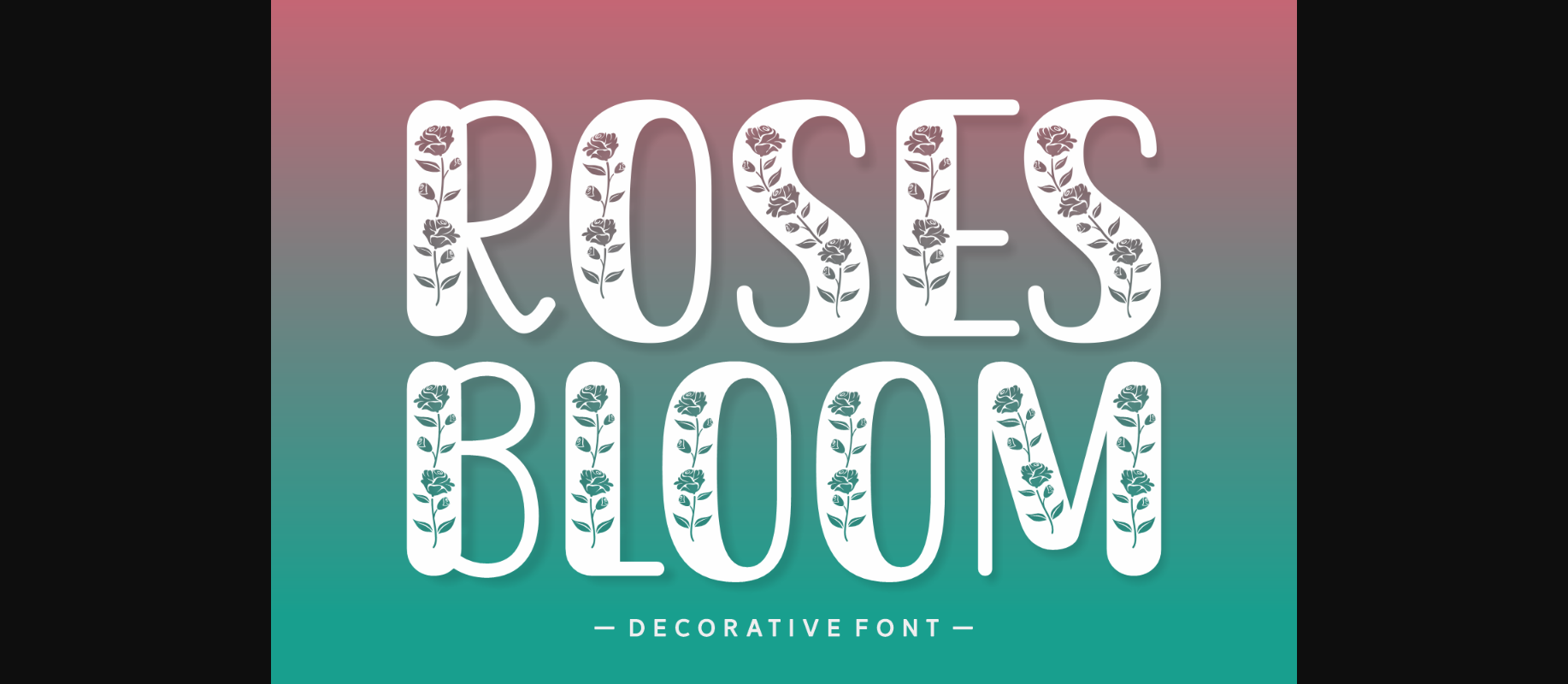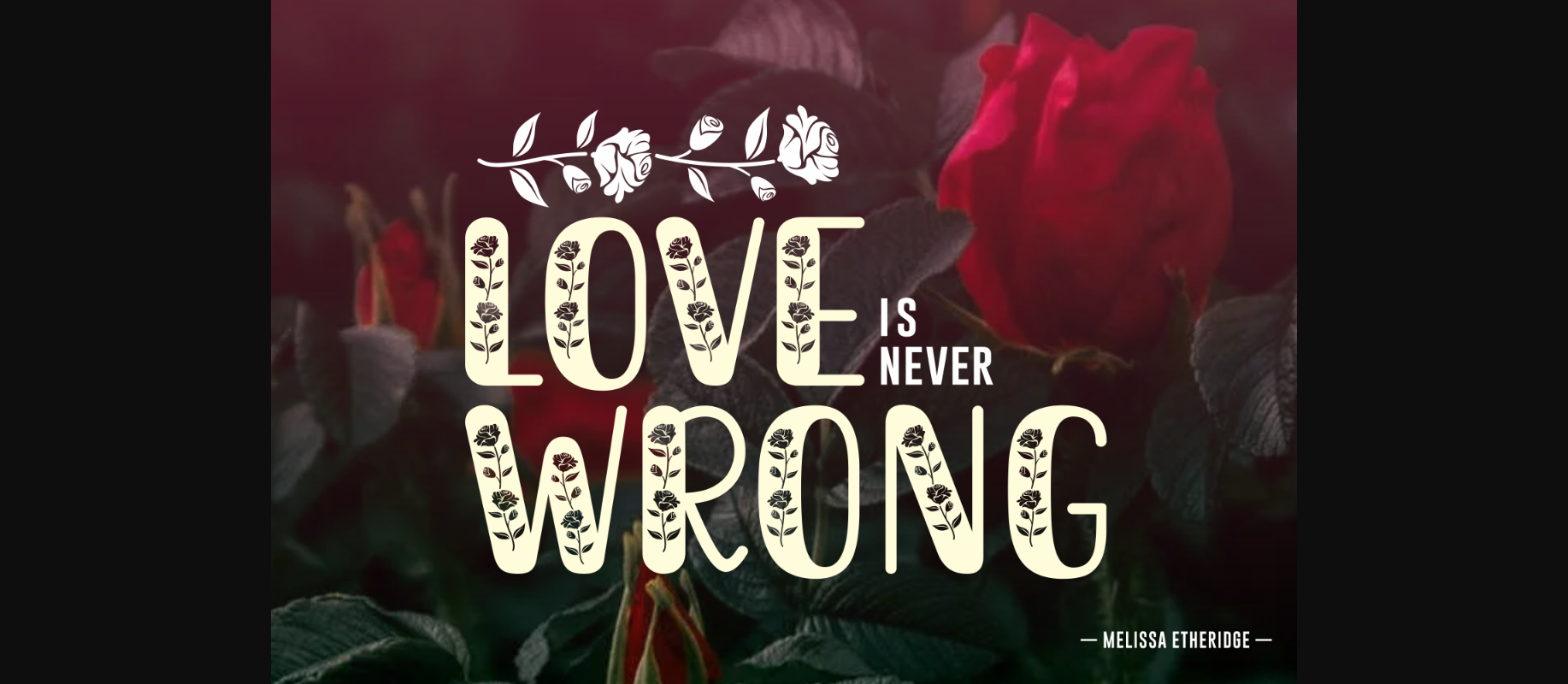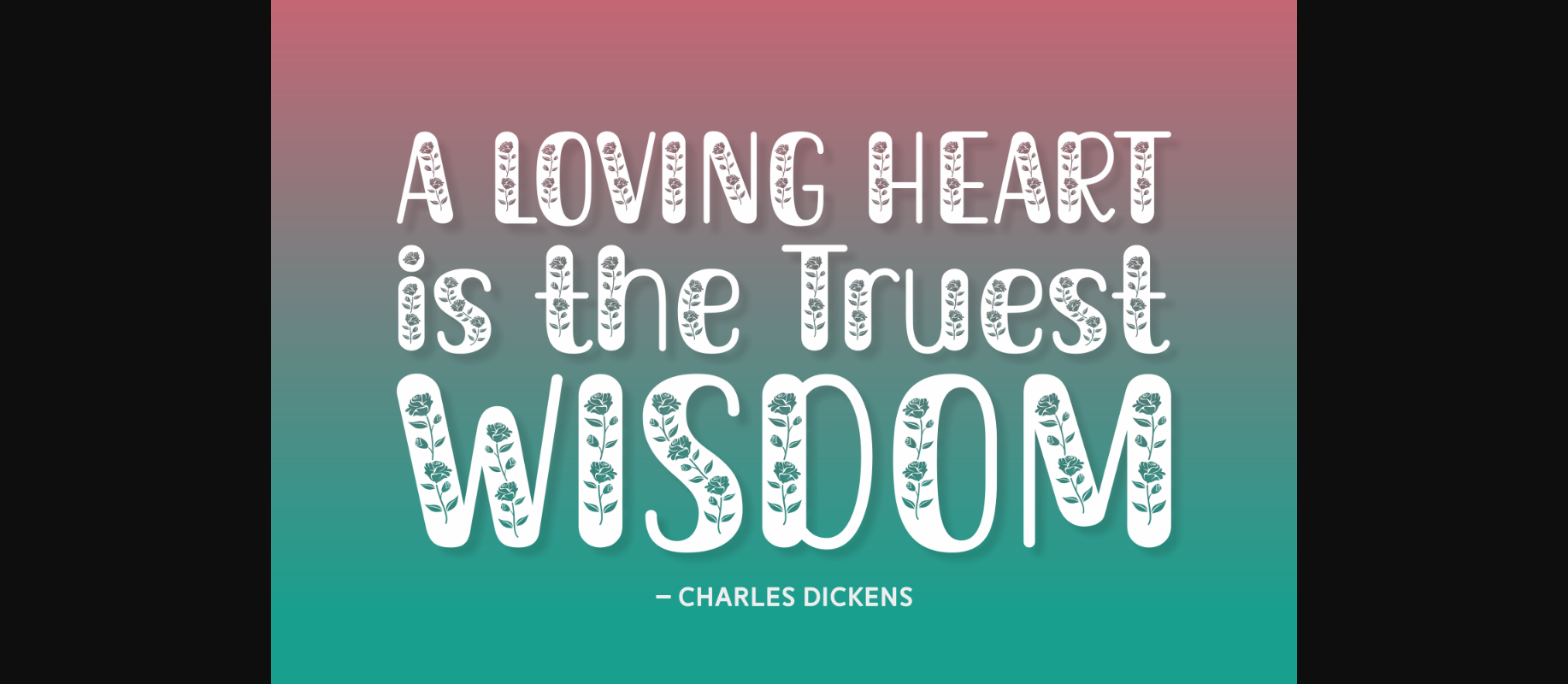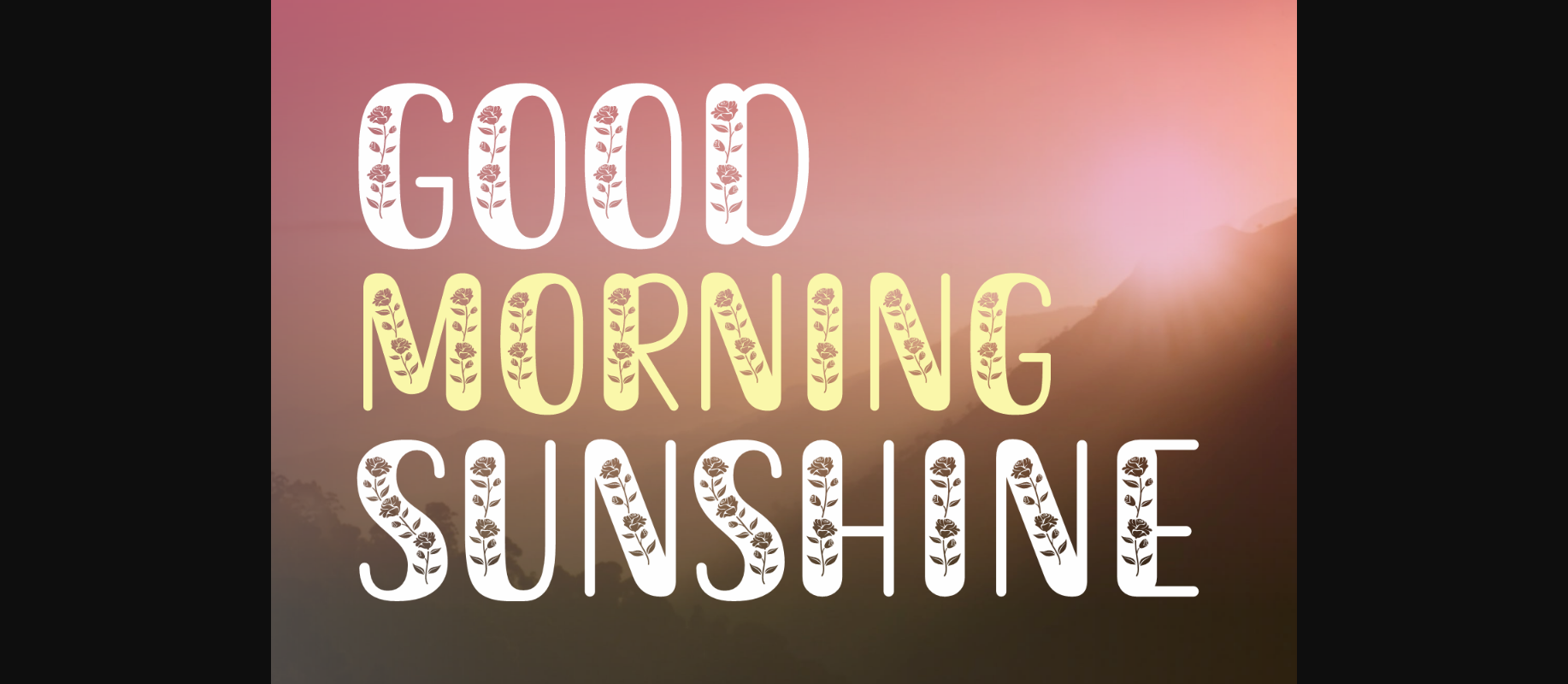
Roses Bloom Font
About Roses Bloom Font
Roses Bloom is a charming and sweet decorative font. Whether you’re using it for crafts, digital design, presentations, or making greeting cards, this font has the potential to become your favorite go-to font, no matter the occasion!